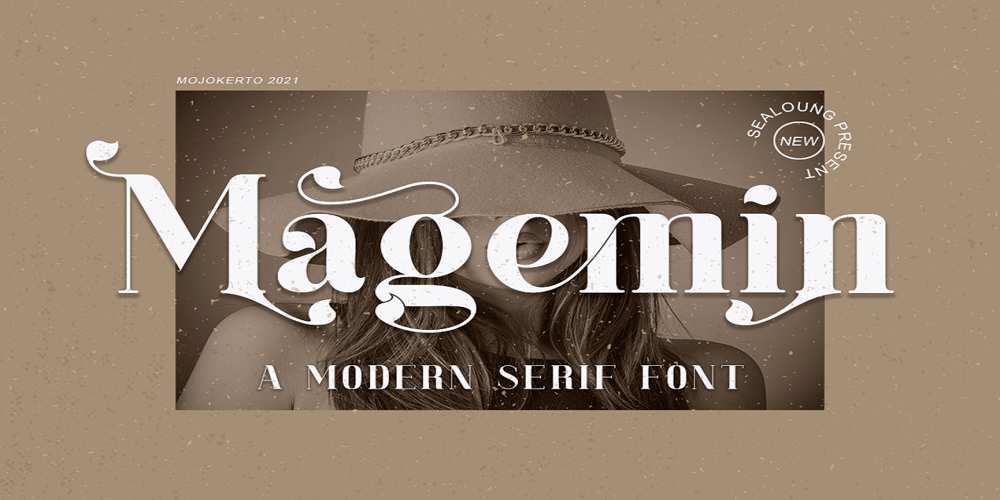
Magemin Font Family was designed by Saiful Anwar and published by Sealoung. Magemin contains 1 styles and family package options. Magemin is an elegant and bold serif font. It is defined by smooth curves and is perfect for fashion branding or editorial designs. Add it confidently to your projects, and you won’t be disappointed.